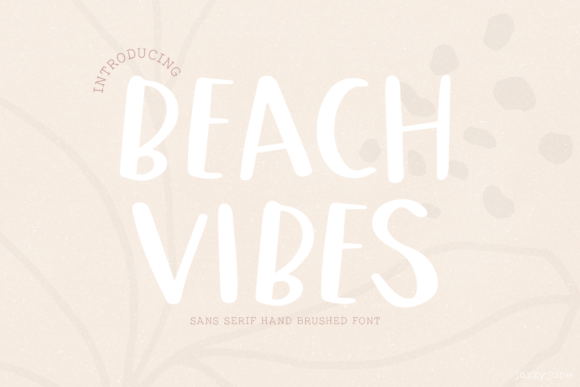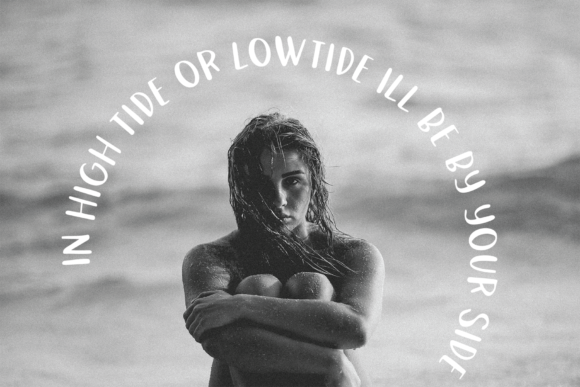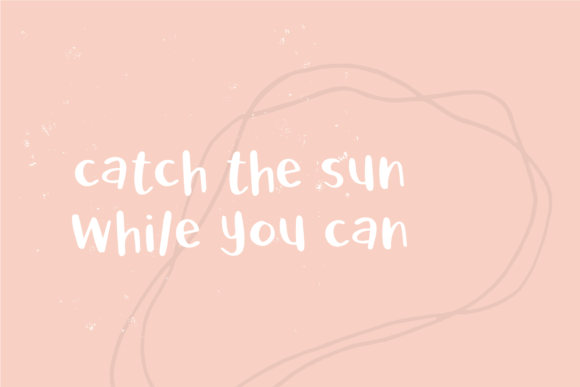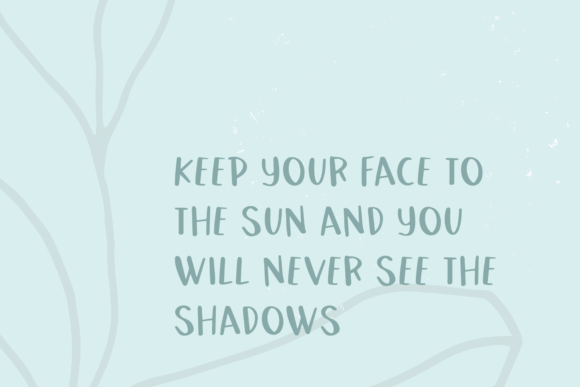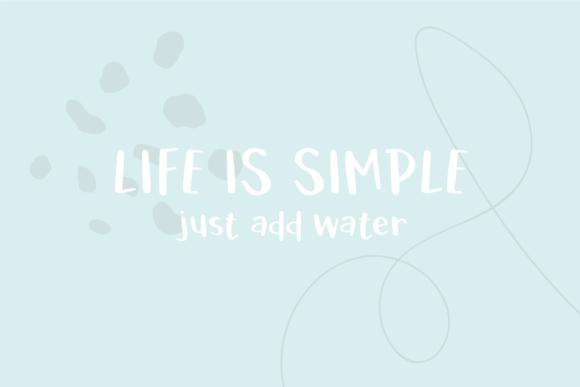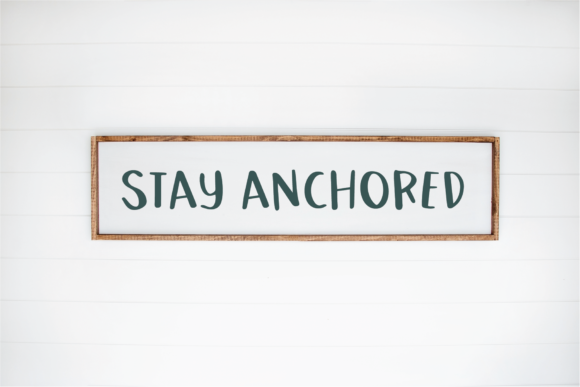
Beach Vibes Font
Introducing Beach Vibes: The Friendly and Bold Handwritten Font
Embrace the carefree spirit of the beach with Beach Vibes, a friendly and bold handwritten font that exudes a sense of adventure and fun. Whether you’re working on logos, posters, stationary art, social media posts, or any other design, Beach Vibes is the perfect choice to add a touch of boldness and versatility.
Beach Vibes’ friendly and bold appeal brings a sense of warmth and approachability to your designs. Its handwritten charm adds a personal and authentic touch, making your text exude a delightful and captivating energy.
As a font that boasts versatility and boldness, Beach Vibes becomes the go-to choice for projects that demand a touch of adventure and creativity. Its bold strokes and friendly demeanor ensure that your work resonates with a spirited and eye-catching look.
Embrace the beach vibes of this font as you embark on your creative journey. Let it be the font that enhances your projects, adding a sense of playfulness and versatility in every endeavor.
As you explore the possibilities of Beach Vibes, you’ll find it to be a font that enhances your designs with ease. Its handwritten charm and bold strokes transform your work, ensuring that your logos, posters, stationary art, and social media posts leave a lasting impression.
So, let Beach Vibes be the font that takes you on a journey of creativity. Embrace its boldness and friendly charm, and watch as your creations become truly eye-catching and captivating. With Beach Vibes as your font of choice, your designs will resonate with a sense of adventure and excitement, captivating your audience and leaving a lasting impression. Embrace the vibes of Beach Vibes and create designs that are truly inviting and unforgettable!